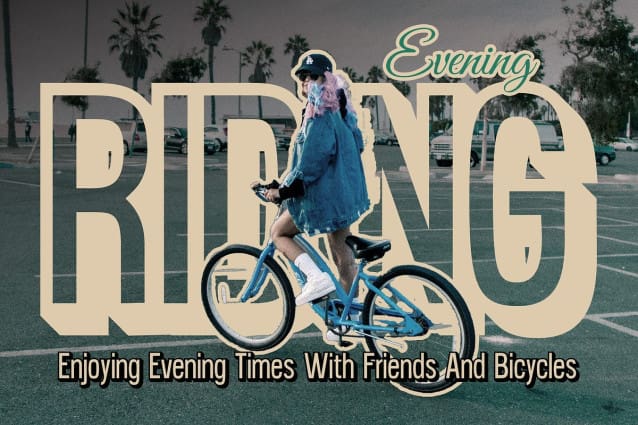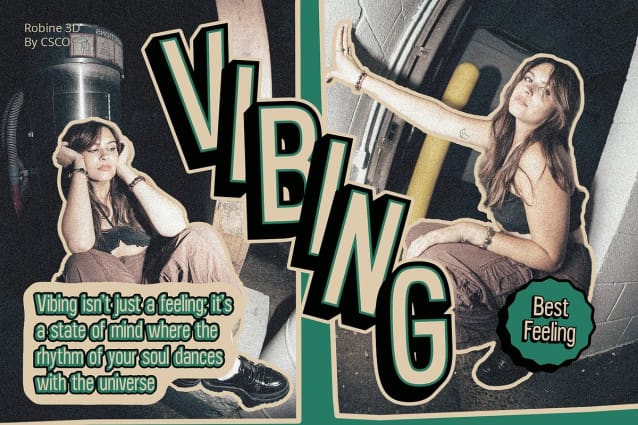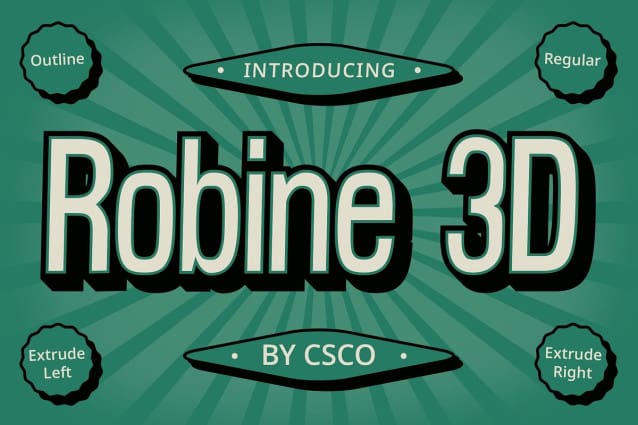
Robine 3D Font
Robine 3D Font: Elevate Your Display Designs. Sleek Sans Serif Design Robine 3D features a sleek and modern sans serif style, characterized by its condensed form and low contrast. This design choice ensures optimal legibility and impact in display applications.
Dynamic Outline and Extrude Effects Enhancing its visual appeal, Robine 3D incorporates dynamic outline and extrude effects. These effects add depth and dimension to each character, making the font suitable for captivating display projects.
Tailored for Display Purposes Designed specifically for display purposes, This font excels in various contexts, from posters to digital interfaces. Its condensed form and striking outline make it a versatile choice for grabbing attention.
Versatility in Application Beyond its display capabilities, This font offers versatility in application. Whether used for branding, advertising, or editorial design, its combination of features ensures versatility and impact.
Dynamic Display Typeface This font emerges as a dynamic display typeface, blending sleek sans serif design with captivating outline and extrude effects. Tailored for display needs, it offers versatility and impact across a range of design applications. Elevate your display designs with Robine 3D and make a lasting impression.